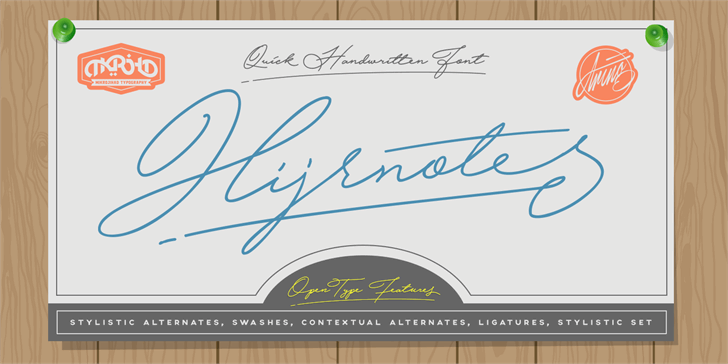
Free Hijrnotes Font
Take a look at this adorable free hijrnotes font. This free font file was found from the amazing source called Font Space. You can create a professional designs with this cool font.